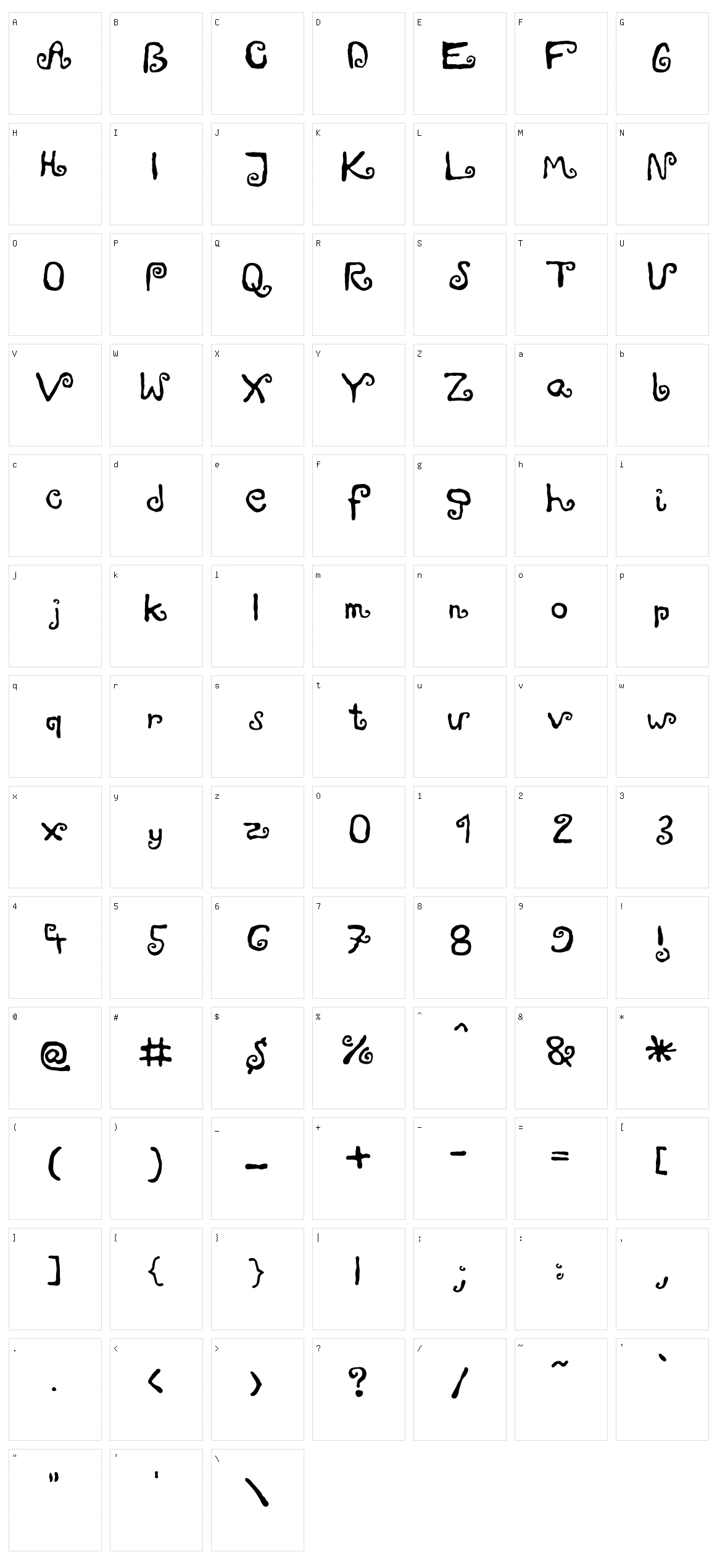
The free font Zawijasy is carefully designed by 066.font, showcasing a thoughtful balance of creativity and usability and falls under the Script font style. When you download the ZIP file, it contains only 52.71 KB of font files, making it lightweight and quick to download. Please review the license details below to understand permitted usage and distribution rights. If license information is not available, we recommend using this font for personal projects only or contacting the author directly for commercial usage permissions.